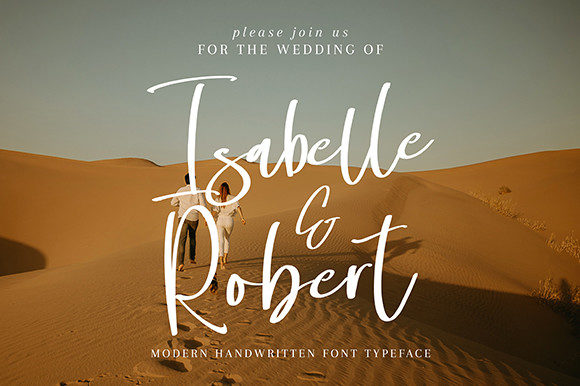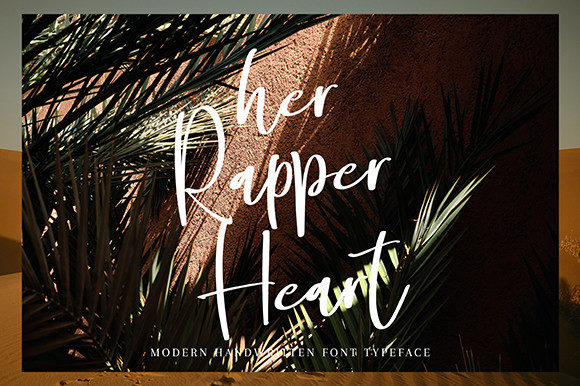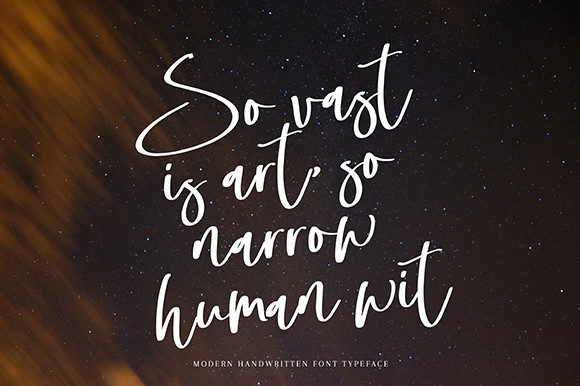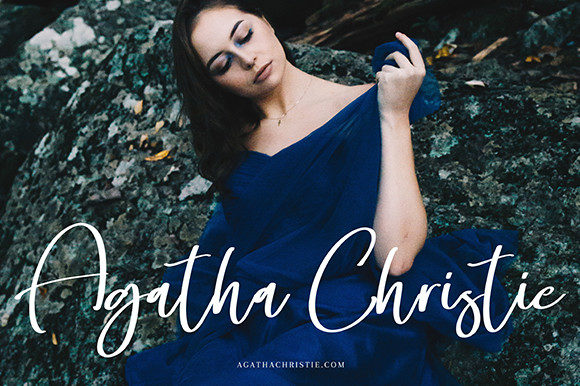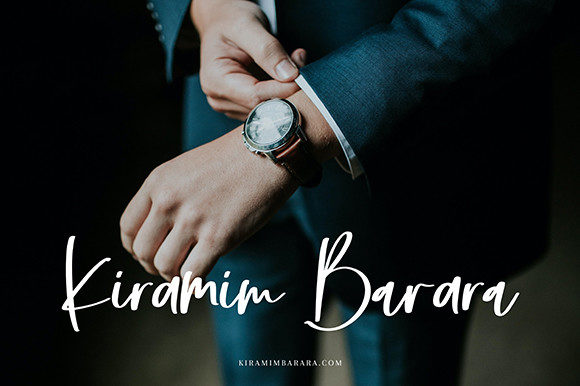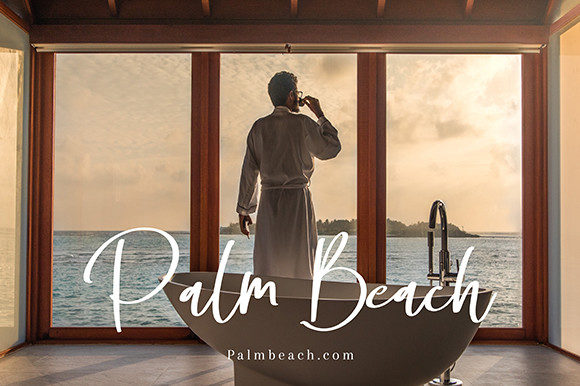
Introducing Amobatte Font: The Ultimate Relaxed and Casual Script Font
Are you tired of using the same old fonts for your designs? Look no further! Amobatte Font is here to revolutionize your creative projects with its relaxed and casual script style. This beautifully crafted font is perfect for designers and crafters who want to add a touch of elegance and sophistication to their work.
What Makes Amobatte Font So Special?
Amobatte Font is a PUA (Private Use Area) encoded font, which means that you can access all of the glyphs and swashes with ease. This feature makes it incredibly versatile and allows you to create a wide range of designs, from simple and minimalist to complex and ornate. With Amobatte Font, you can add a personal touch to your projects and make them stand out from the crowd.
The Versatility of Amobatte Font
One of the best things about Amobatte Font is its versatility. This font can be used for a wide range of projects, including:
Whether you’re creating a simple logo or a complex web design, Amobatte Font is the perfect choice. Its relaxed and casual style makes it perfect for designs that require a personal touch.
Key Features of Amobatte Font
Here are some of the key features that make Amobatte Font so special:
- Relaxed and casual script style
- Incredibly versatile and adaptable
- Perfect for a wide range of design projects
Tips for Using Amobatte Font
Here are some tips for using Amobatte Font in your designs:
- Use it as a headline font to add a touch of elegance and sophistication
- Pair it with a sans-serif font for a modern and stylish look
- Use it to create a sense of movement and fluidity in your designs
Why Designers and Crafters Love Amobatte Font
Designers and crafters love Amobatte Font for many reasons. Here are a few:
- It’s easy to use and accessible
- It’s incredibly versatile and adaptable
- It’s perfect for creating unique and personalized designs
- It’s a great way to add a touch of elegance and sophistication to designs
In conclusion, Amobatte Font is a must-have for designers and crafters who want to create stunning and unique designs. Its relaxed and casual script style, combined with its versatility and PUA encoding, make it the perfect choice for a wide range of projects. Whether you’re a seasoned designer or just starting out, Amobatte Font is sure to become a favorite in your collection.